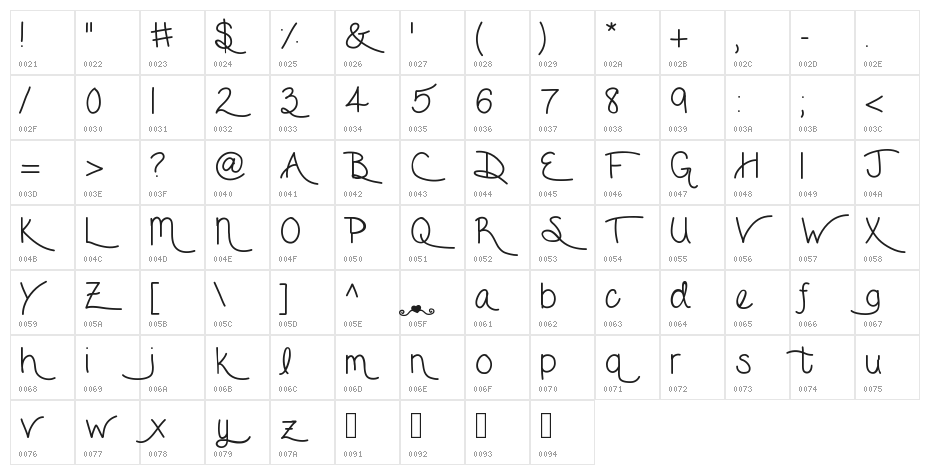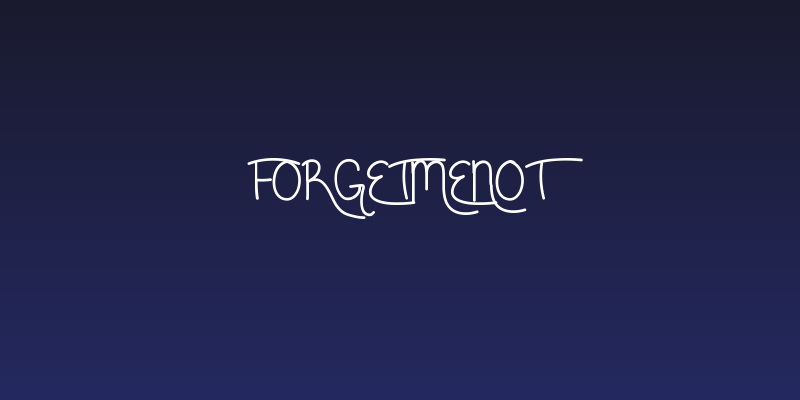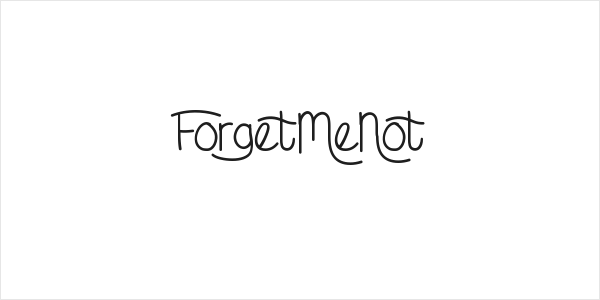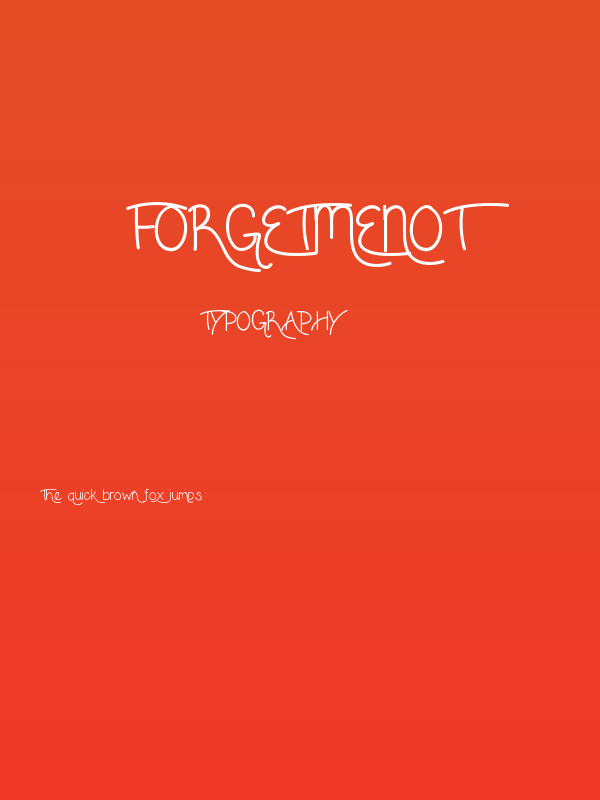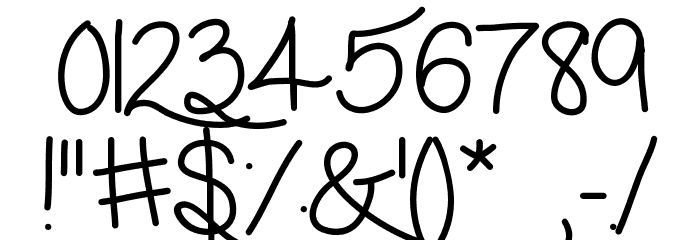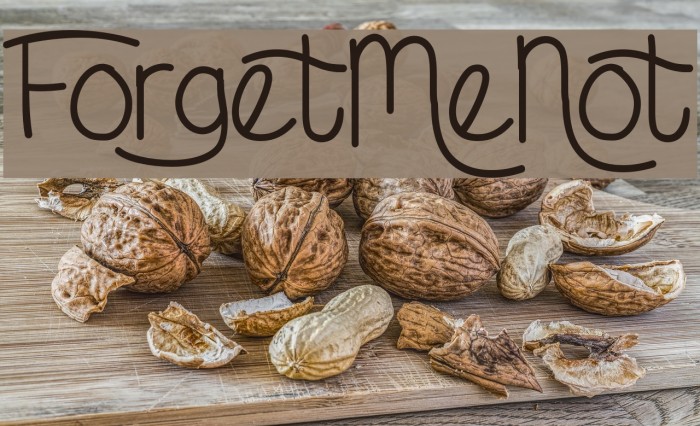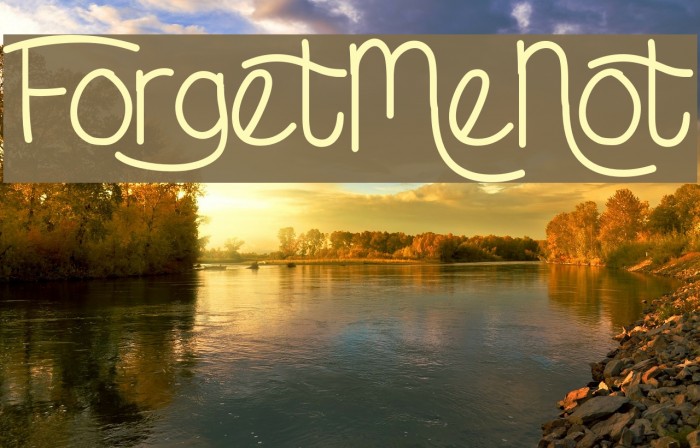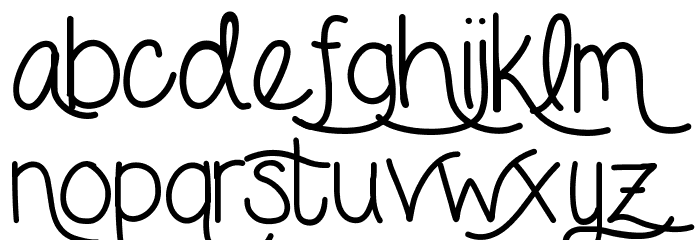
ForgetMeNot Font
ForgetMeNot Description
This font features a whimsical and playful script style, characterized by its flowing, interconnected letters that mimic a handwritten aesthetic. The uppercase letters are tall and slightly narrow, with exaggerated loops and curves that give them a unique flair. The lowercase letters maintain a consistent flow, with smooth transitions and rounded edges that enhance the font's casual and friendly appearance. The numerals are equally playful, with a consistent stroke width that complements the overall design. Special characters are creatively integrated, maintaining the font's cohesive style. This font is ideal for projects that require a personal touch, such as invitations, greeting cards, or branding for creative businesses.
| Use Case | Logos, Headlines, Invitations |
| Proposed Projects | Ideal for invitations, greeting cards, creative branding, and personal projects. |